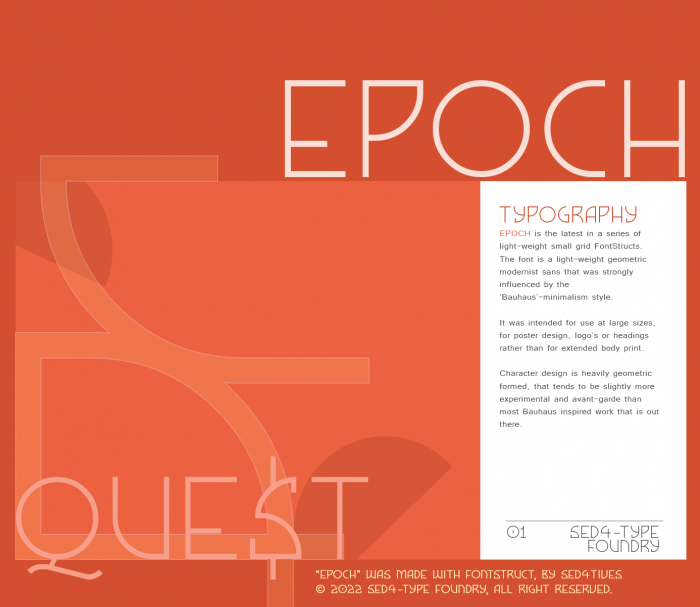
EPOCH - Modern light-weight geometric display sans
───── 「 MEASURES 」
(in grid units)
X-Height: 1
Cap-Height: 2
Descent: 1
Optical Corrections: None
Stroke: 1/8 th
4-Em / 0.125 : 1-Stroke (0.125 ≍ 1/8 th)
― No filters used.
───── 「 SUMMARY 」
This is yet another deep dive into the very small and tiny quantum realm of FontStruct's small grid and light-weight stokes.
Unlike some of my previous endeavours into this dark corner of the FS-editor, which could have dizzying complexity in forms, this project for once didn't stress the sh....*t out of me by stretching the limits for my capabilities beyond what is still comfortable this time. Nor did it drain every last frigging bit of my knowledge or clever creative insight to pull it off.
On the contrary,
For once it remained largely a pretty straight forward and easy project in terms of forms and geometry. The absence for most of the 'bar-raising' features such as diagonal forms, rounded, transitions or stroke modulation made this 'FontStruction' that much more easy.
And when metaphorically breaking it down to the bare naked form and necessities, this design mainly consist of FS's (default)-brick set, resized modifications of those, combined with a set of stacked composites.
There a still a number of things I'd rather seen differently, and will see later attempts at making improvement, but taken in a broad perspective most of the included material so far look pretty fine to me already. And to point out one of the things that is still bugging actually are the 'accented' letters.
Some glyphs have odd values for their 'character'-width, and this makes it impossible to achieve 'grid to em-square'-bounding box allignement in FS's editor. So accents in these asymmetrical values look slightly ofset.
― "Changing character widths to nearest even value is simply far too destructive to the stylish characteristics of the fonts appearance"
───── 「 ABOUT THE FONT 」
In the end it became a pretty cool looking light-weight geometric modernist sans-serif style that at the same time has strong hints of Art-Deco-style lettering as well.
And apart from the minor things it fell short with, I think there is a lot about its overall character-set design and forms that is looking pretty darn rad actually if you ask me.
Content-wise the font is a single case design in a 'all-caps' or Majuscule style. The (Lc)-string was kept empty for deliberately for the technical reason of preserving all the (default)-blank metrics data for any further design updates.
───── 「 WHATS INSIDE 」
A little bit of everything...
■ Body text formatting:
□ Basic-Latin based character set with accented letters & numerals
□ Most punctuation marks
□ Numerous symbols
■ Decorative formatting
□ Pictorial attributes
□ Repeating patterns
───── 「 THE END 」
That "Q" is just amazing
This is really great! I wonder if you could construct a Z with a hard corner in the upper right to distinguish it from the 2 more?
@ aphoria: Thanks to you too ofc, I understand what you mean by the two being very similar, but I'm pretty sure that what you suggest would mess up the overall aesthetics that is somewhat reflected in all glyphs for me. I rather change the terminal for 2 slightly by extending it a bit further downwards.
Okay I made some changes to the numeral set so that they remain faithful amongst one another, all downward terminals were slightly extended and those of 2 and 7 were extended ever further and kept equal in length to mirror eachother, but the thing that sort of determins the length of each terminal is the height of each glyphs optical cross section, since this is slight ofset for all glyphs in relation to the cap-height's actual halfway point, some sit 0.125 or 0.25 units above it whereas others sit 0.125 or 0.25 bellow this virtual center line of the cap-height. This in fact already was one of thw subtle differences that distinguished 2 (@ 0.25 ⬇) and Z (@ 0.25 ⬆) slightly from one another.
All of this just to save Z's original form (I hope he feels special now) lol
Congrats on the TP! I'm with aphoria about the Z. And I'm in love with the pretty Q and & ? .
"Z" & "2" are similar.
No shit detective?! ?